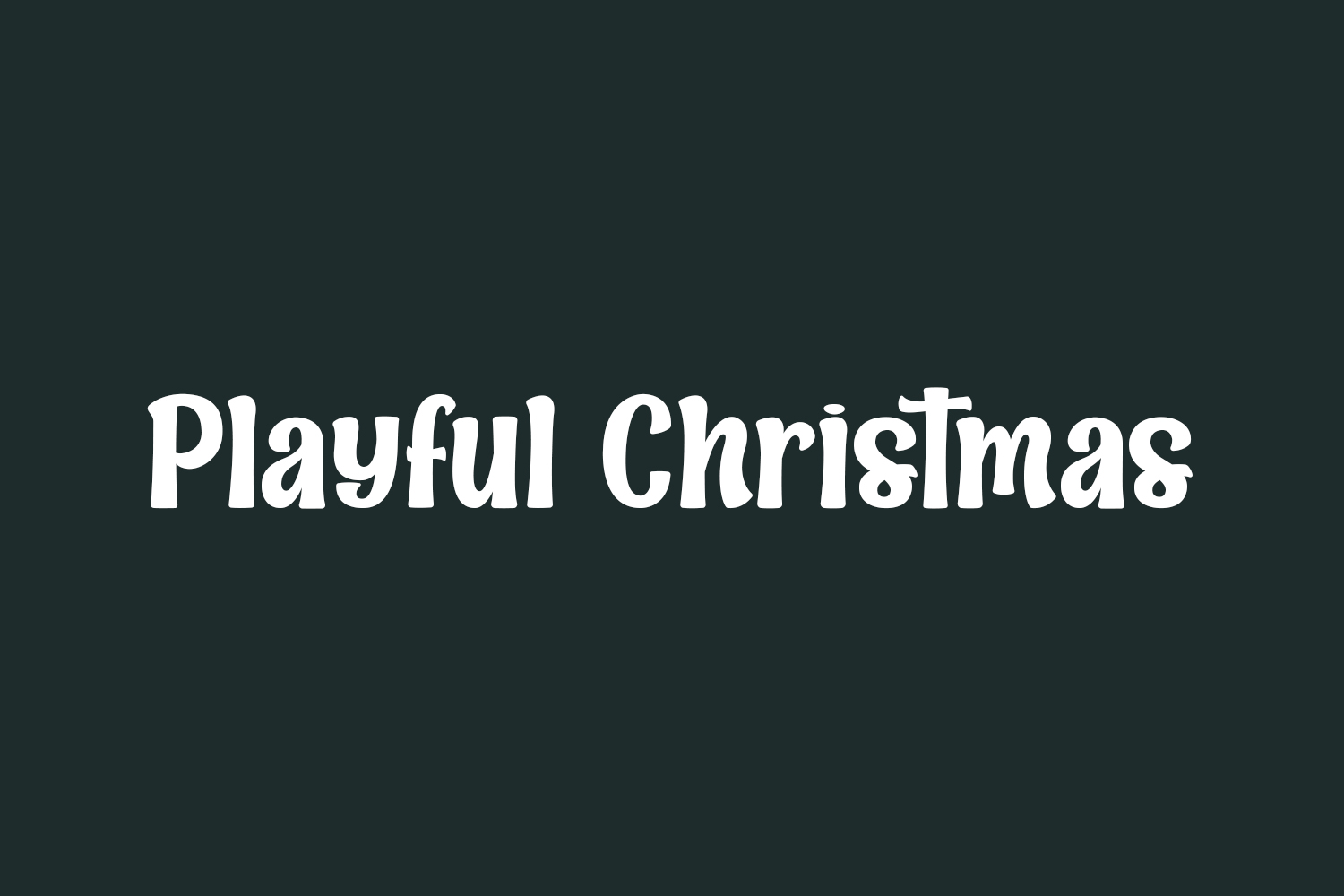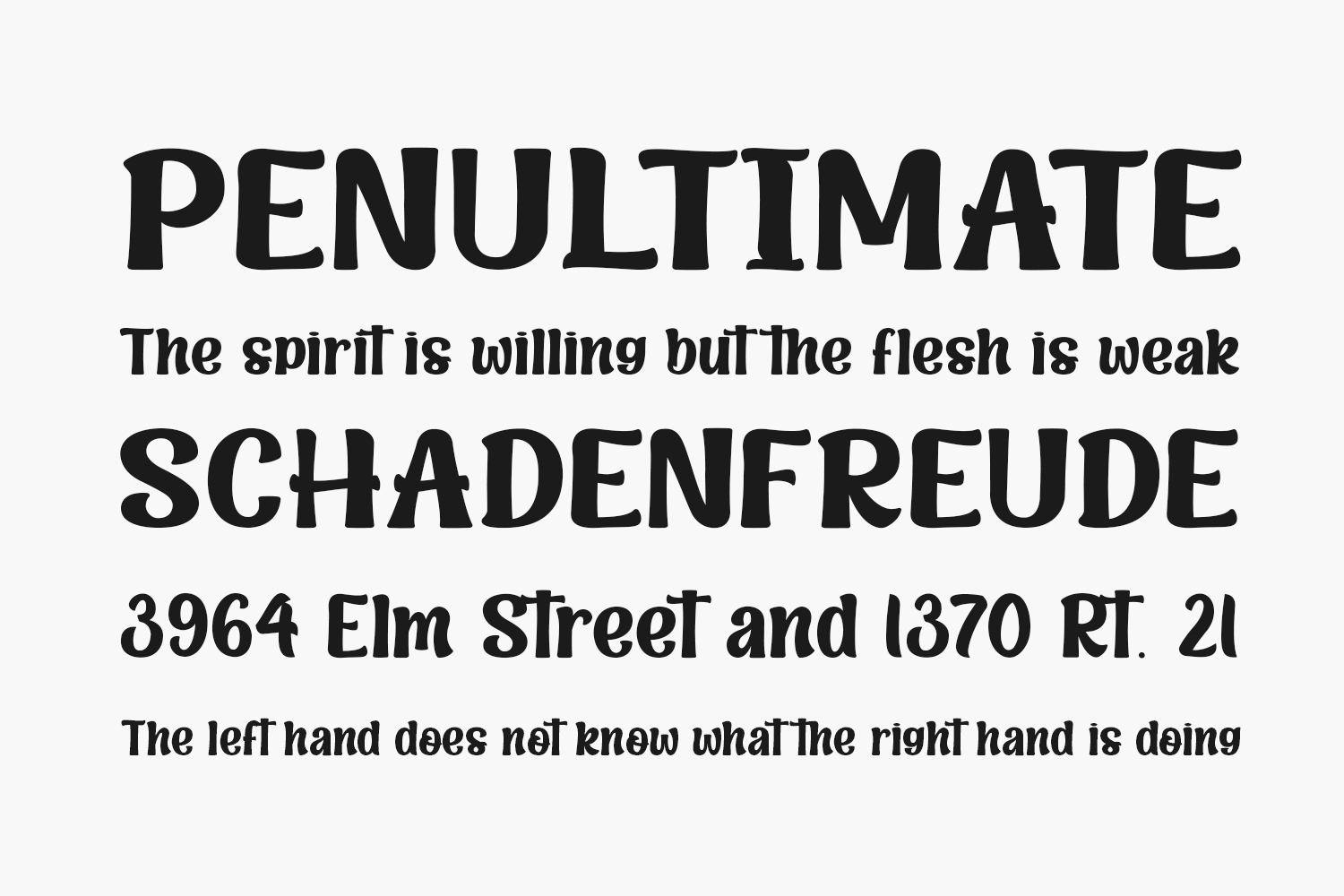
Playful Christmas Free Font is a friendly, fresh, rich, and elegant handwritten font. It is ideal for holiday-themed greeting cards and for any crafting project that requires a cute touch. Playful Christmas Free Font was designed by Typhoon Type™ and is free for personal use only. Please purchase the full version for commercial use.